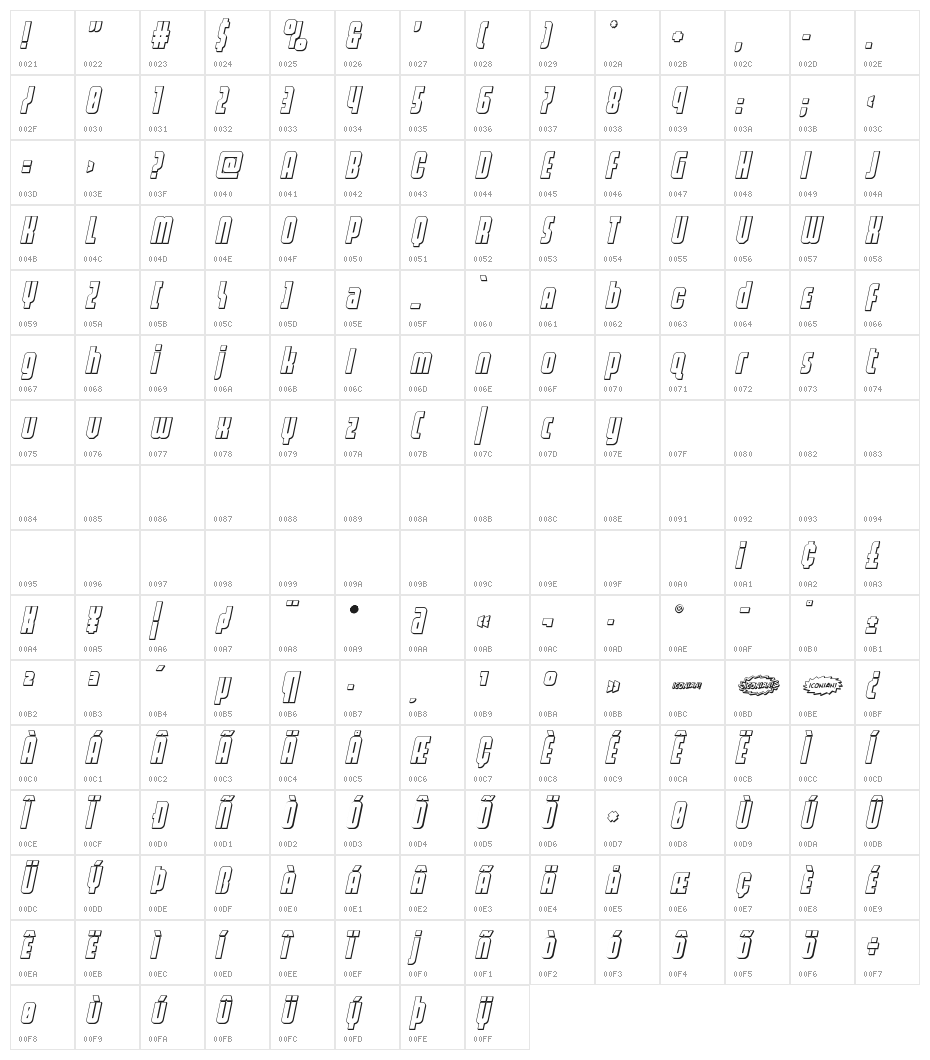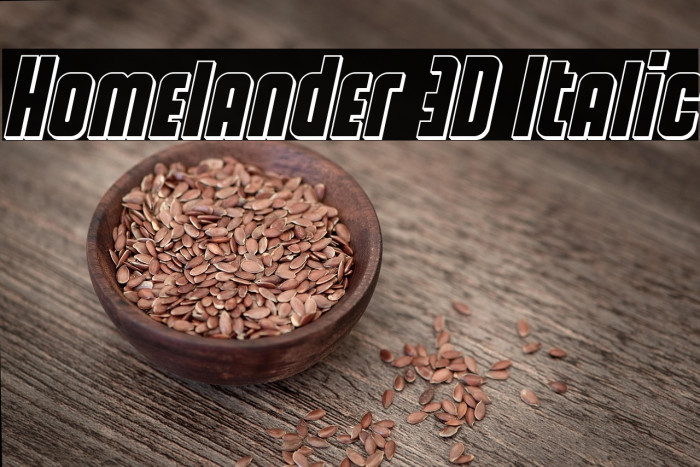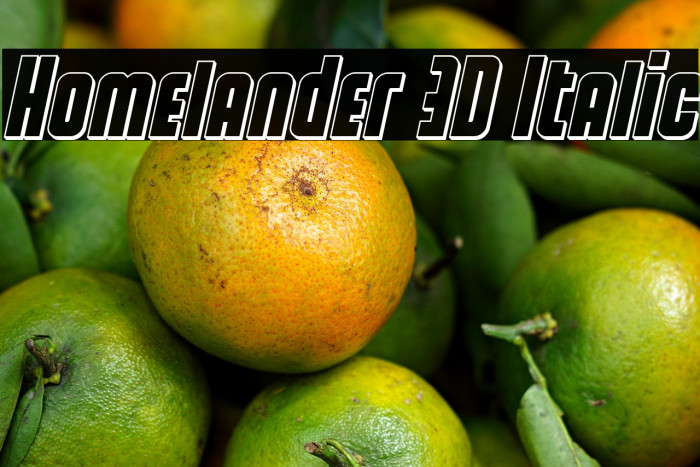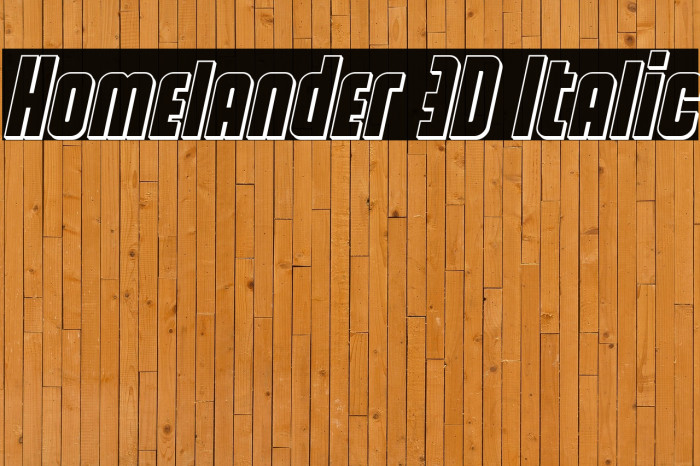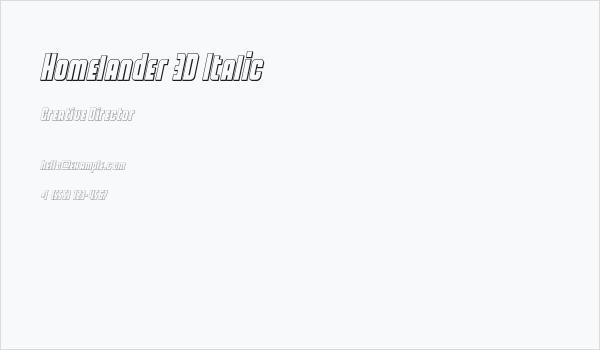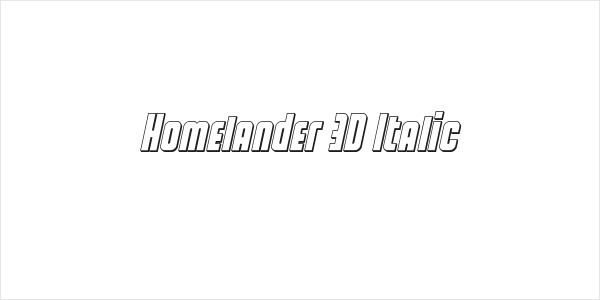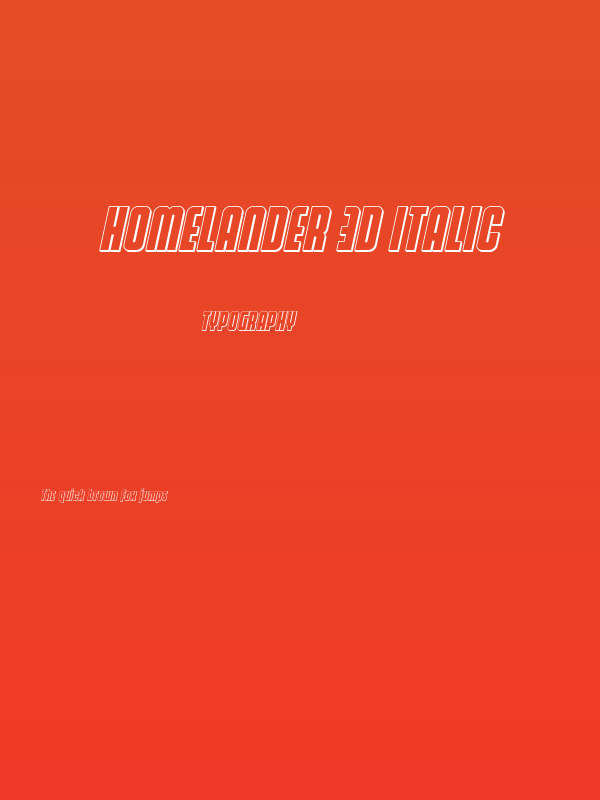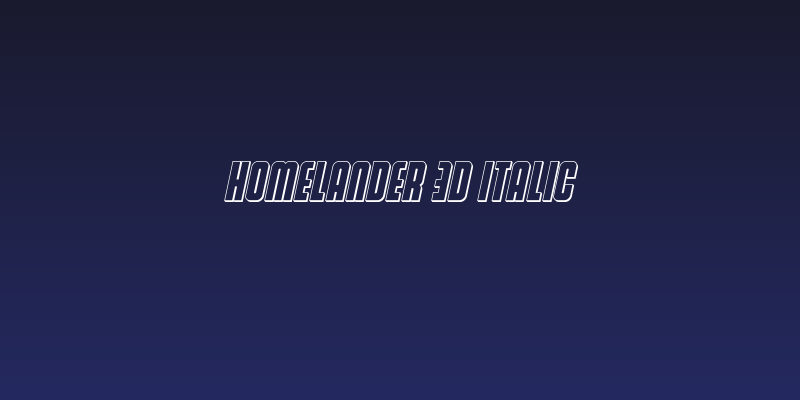
Homelander 3D Italic Font
Homelander 3D Italic Description
This font features a bold, three-dimensional appearance with a strong italic slant, giving it a dynamic and impactful look. The characters are outlined, adding depth and a shadow effect that enhances its 3D style. The uppercase and lowercase letters maintain a consistent style, with sharp angles and clean lines that contribute to its modern and futuristic feel. The numerals and special characters are equally bold and stylized, ensuring uniformity across all glyphs. This font is designed to stand out, making it ideal for attention-grabbing headlines or titles.
| Proposed Projects | Ideal for use in posters, video game titles, branding, and any project requiring a bold, futuristic look. |